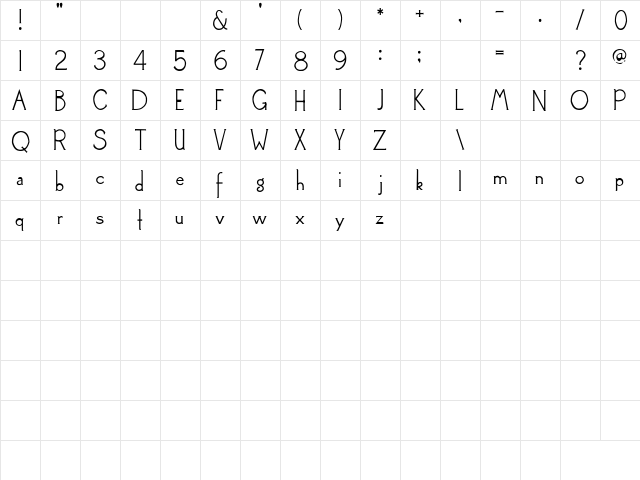
2Peas Sailboat Regular
Design Context for 2Peas Sailboat Typeface
2Peas Sailboat is a composed and adaptable typeface that performs quietly and consistently across a wide range of design contexts.